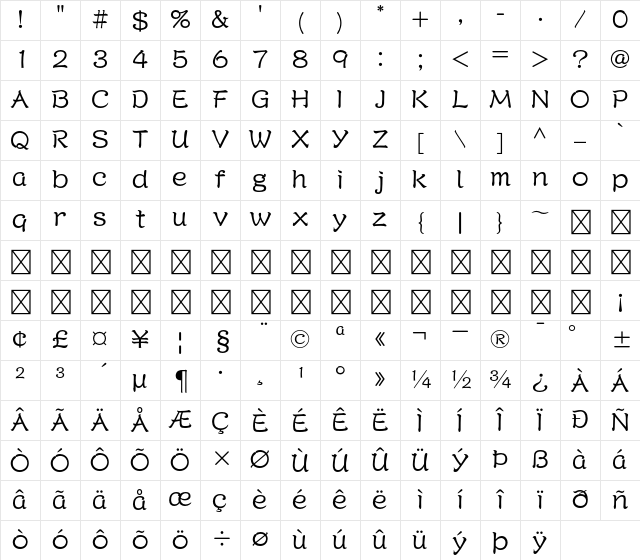
A-OTF Shinsei Kaisho CBSK1 Pr5 CBSK1
A-OTF Shinsei Kaisho CBSK1 Pr5 is a composed and adaptable typeface that performs quietly and consistently across a wide range of design contexts.